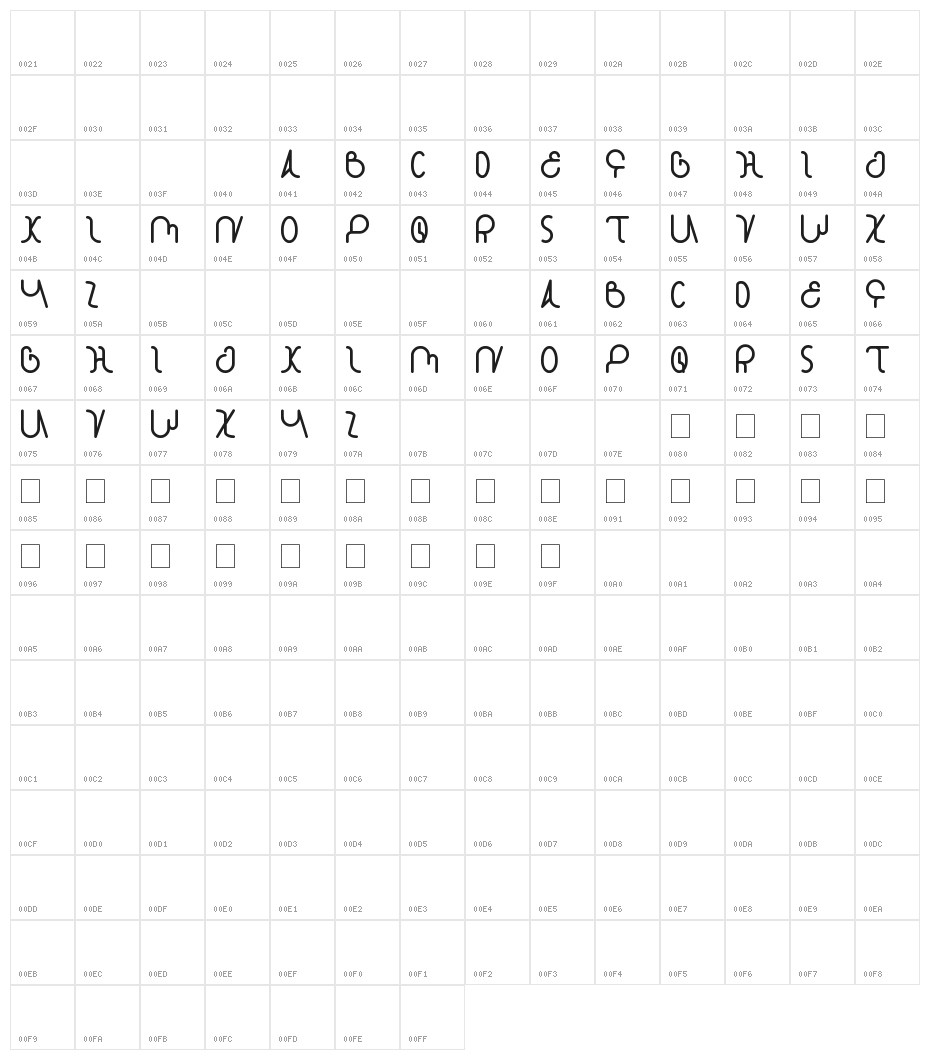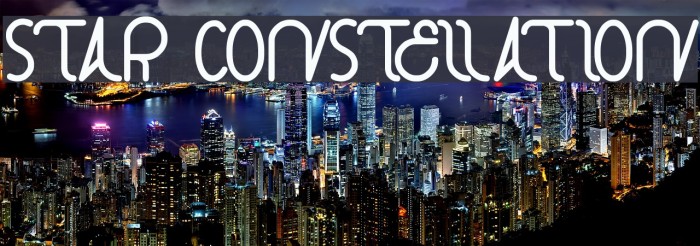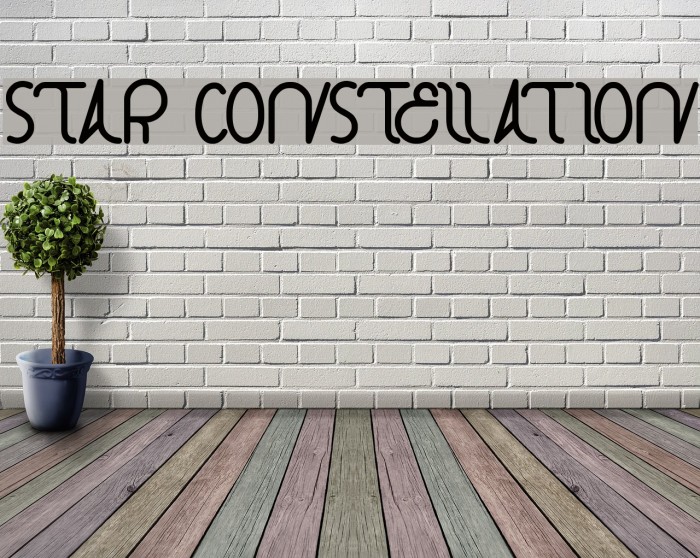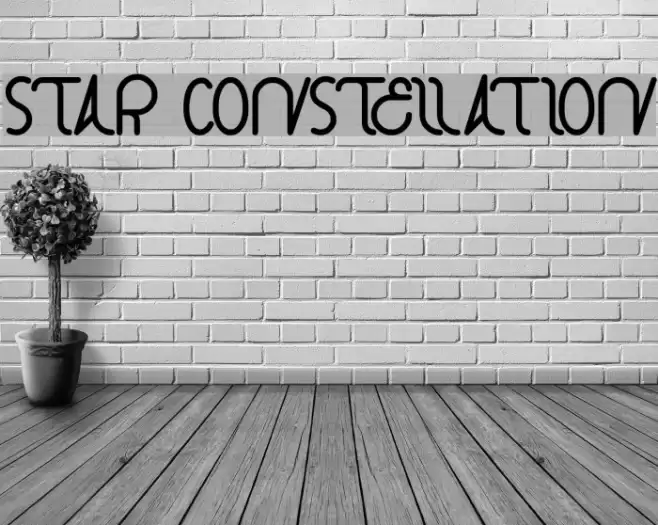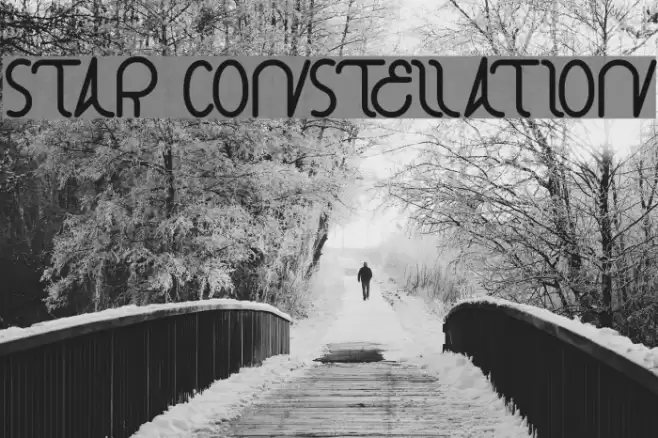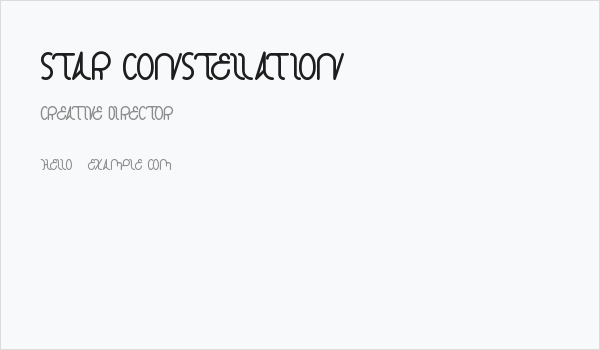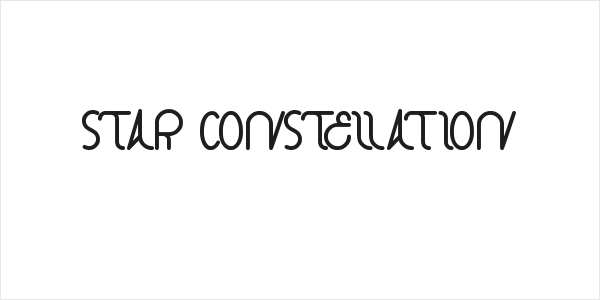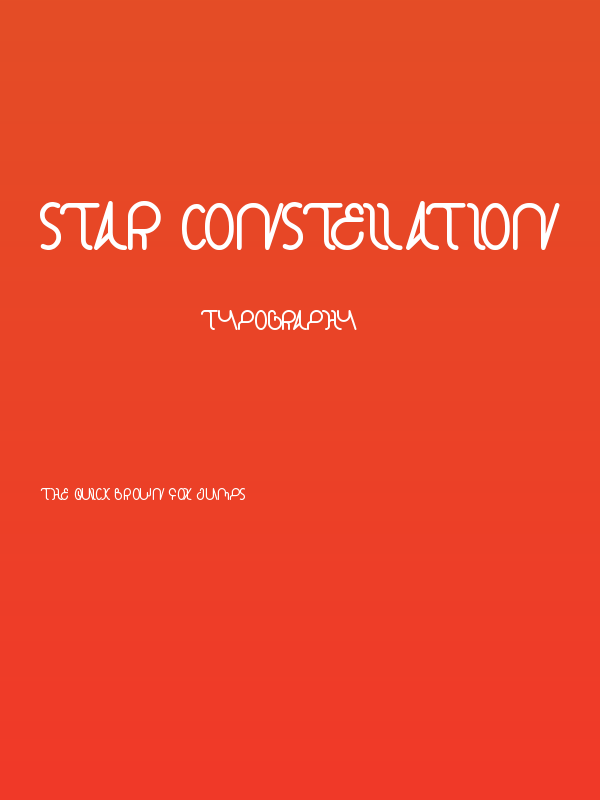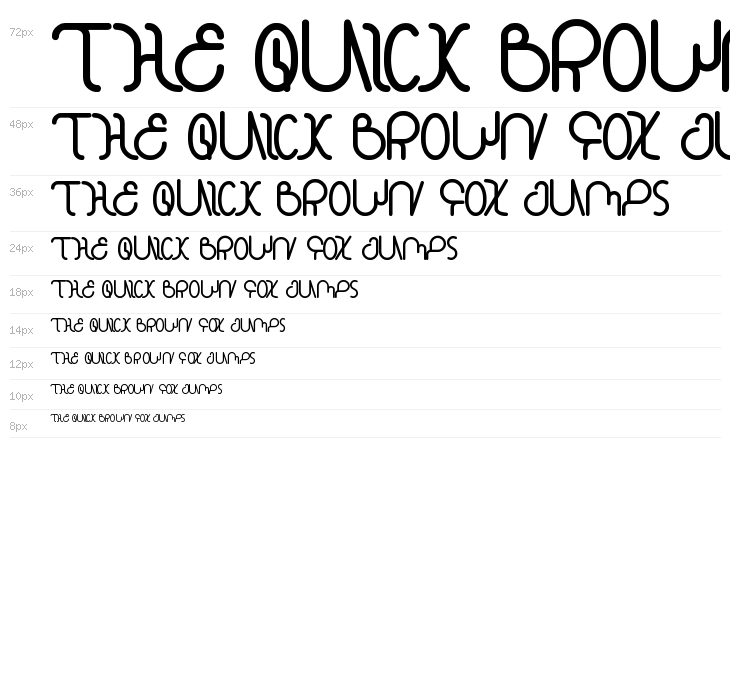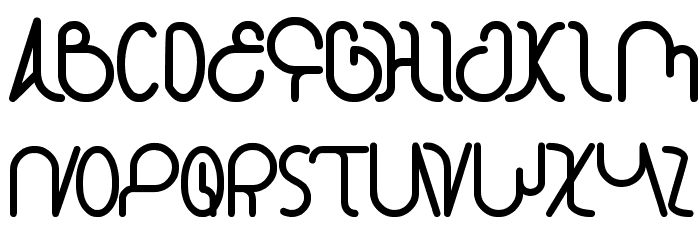
star constellation Font
star constellation Description
This font features a unique and modern design with a playful twist. The characters are crafted with smooth, rounded edges and a consistent line weight, creating a harmonious and cohesive appearance. The uppercase letters exhibit a distinct style with some characters incorporating unexpected curves and loops, adding an element of surprise and creativity. The lowercase letters maintain the same playful aesthetic, ensuring readability while keeping the design fresh and engaging. The numbers and special characters are designed to match the overall style, making this font versatile for various applications.
Proposed ProjectsIdeal for branding, children's books, creative posters, and playful packaging designs.